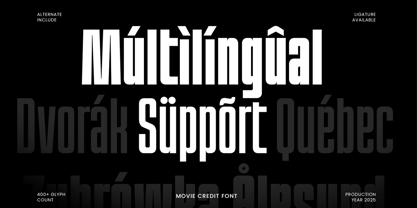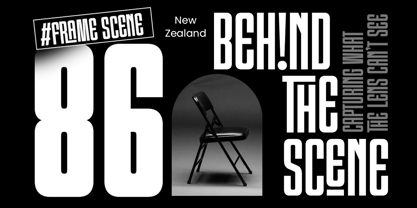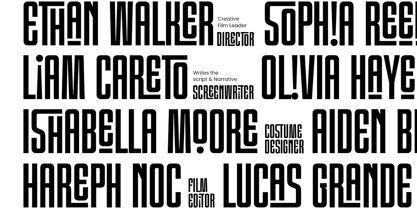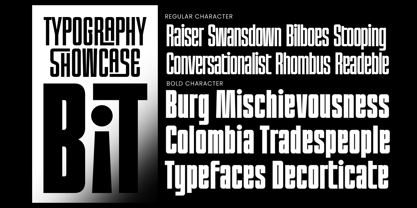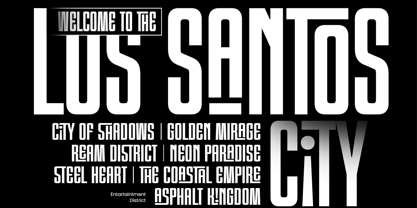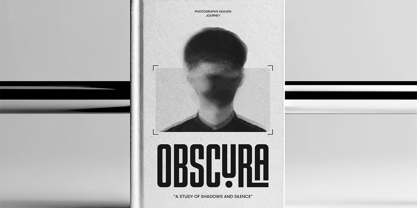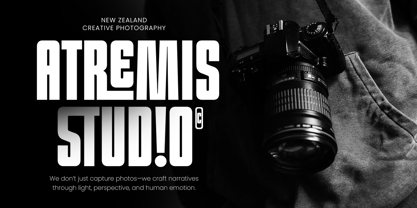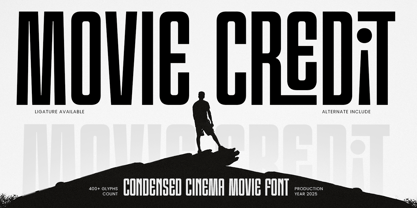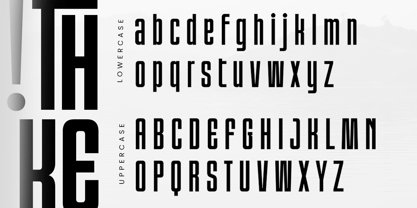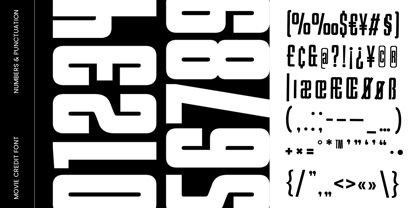
MOVIE CREDIT is a condensed cinema movie font designed to deliver a sleek, professional film-industry atmosphere. With narrow proportions and confident structure, this typeface brings a cinematic tone that feels dramatic, polished, and perfect for screen-inspired typography.
Built for movie credits, film titles, trailers, posters, and streaming graphics, MOVIE CREDIT works beautifully in editorial headlines, festival branding, signage, and modern promotional layouts. Its condensed form helps you fit more text while keeping strong presence—ideal for credit rolls, billing blocks, and high-impact title compositions.
Whether you’re designing for filmmakers, studios, creative agencies, or cinematic-themed branding, MOVIE CREDIT adds instant film credibility and stylish clarity across both digital and print projects.
MOVIE CREDIT – Condensed Cinema Font Features
Condensed letterforms inspired by cinematic typography
Available with Regular and Bold weights inside the font files
Ideal for movie credits, title sequences, and film posters
Strong presence for headlines, billing blocks, and editorial layouts
Great for festival branding, trailers, and streaming graphics
Includes uppercase, lowercase, numerals, and punctuation
Clear readability for screen use and print production
OpenType features for flexible, professional typesetting
Give your titles a big-screen finish with MOVIE CREDIT—crafted for cinematic credits and bold film typography. 🎬✨